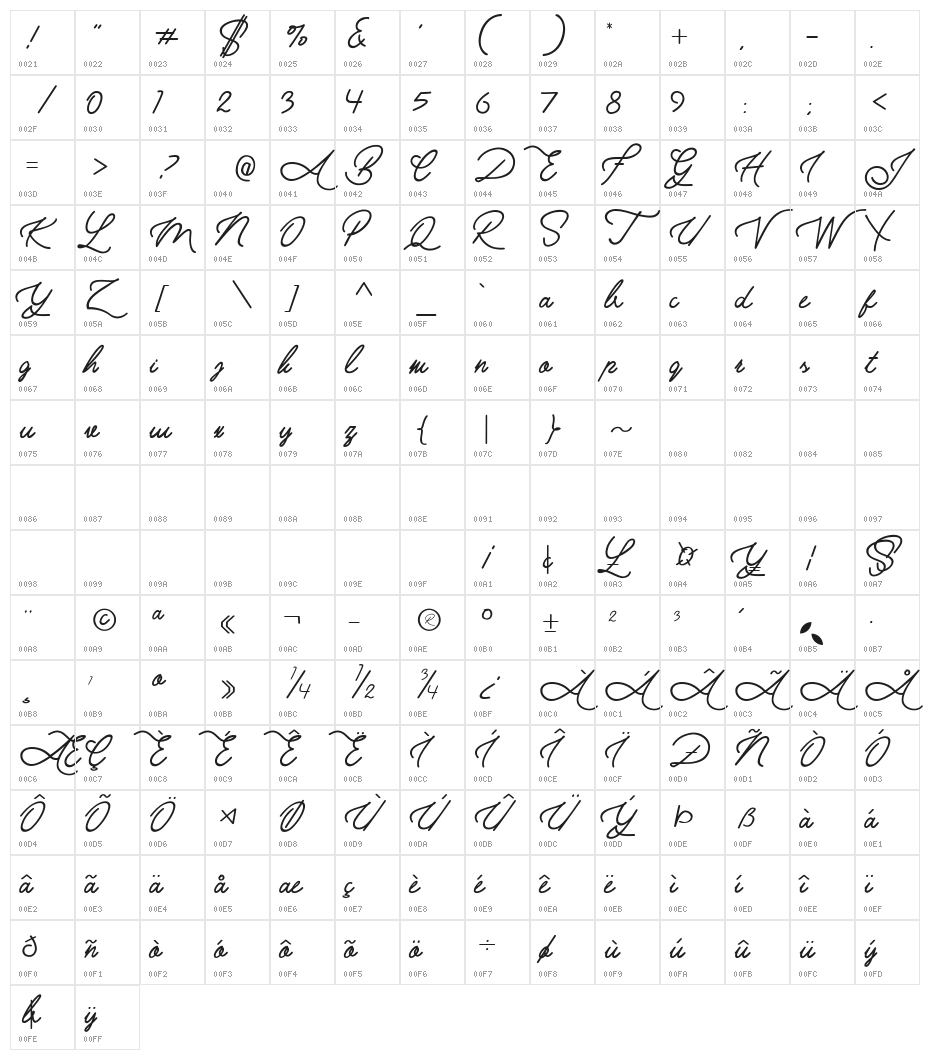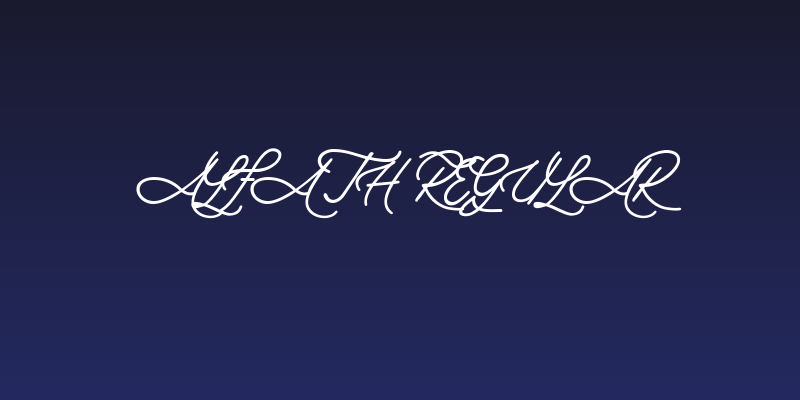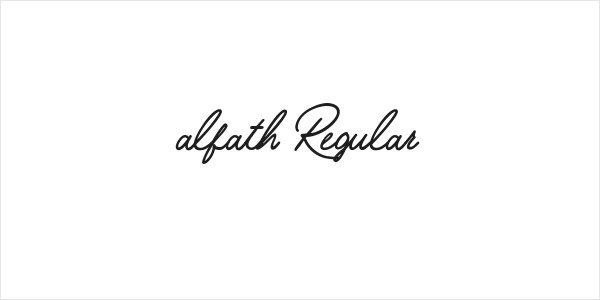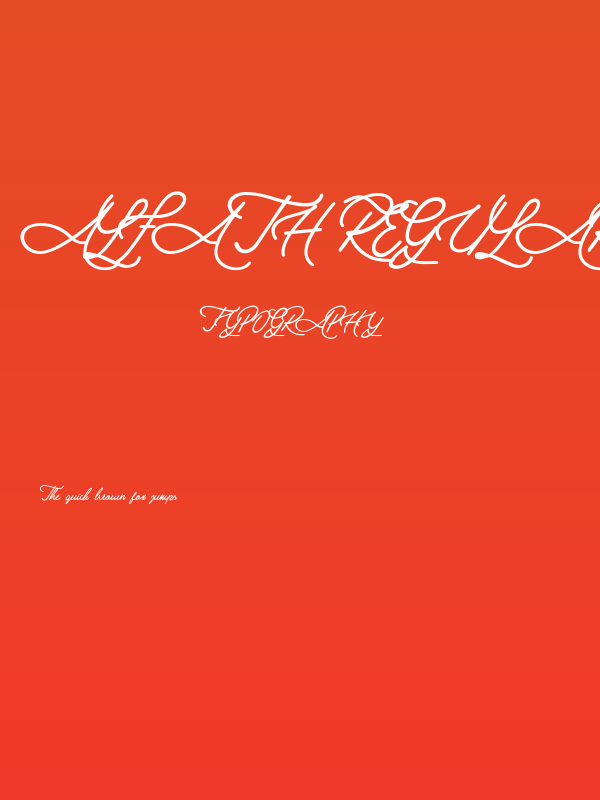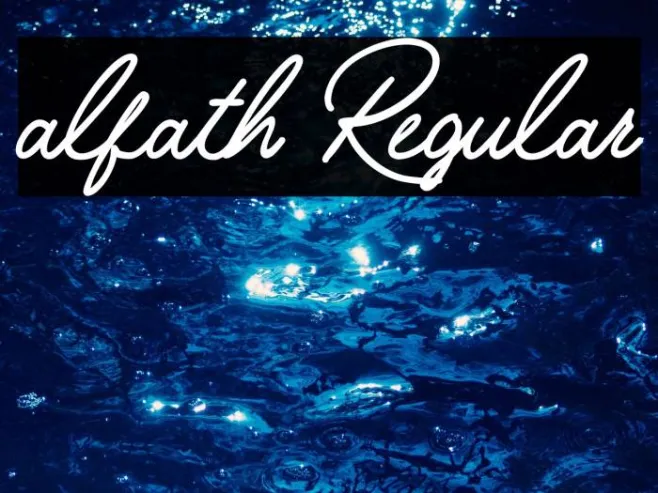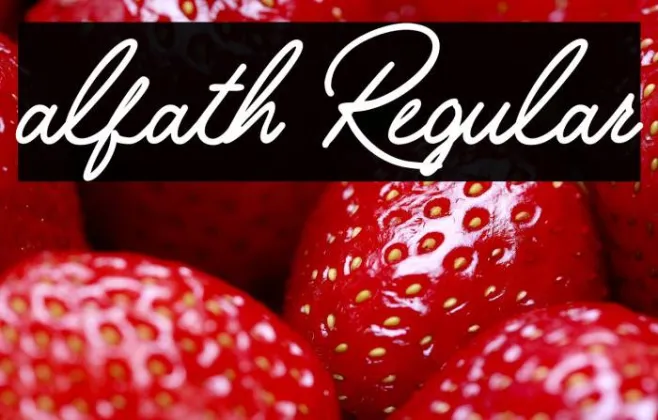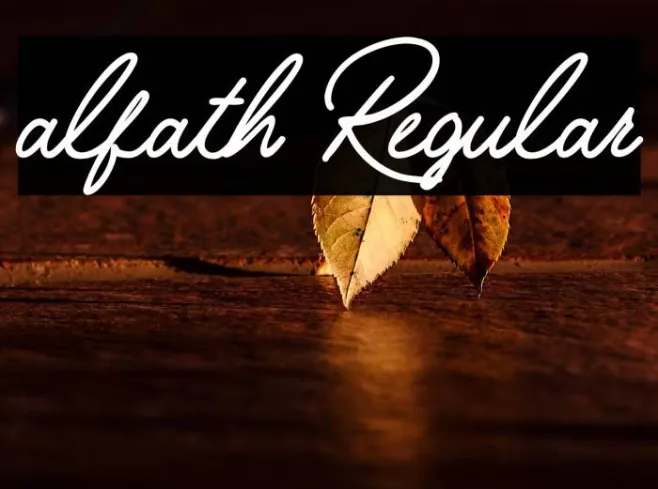
alfath Regular Font
alfath Regular Description
This elegant script font features fluid, cursive strokes that mimic the natural flow of handwriting. The uppercase letters are characterized by sweeping curves and loops, giving them a sophisticated and graceful appearance. The lowercase letters maintain a consistent style with smooth connections between characters, enhancing readability while preserving the artistic flair. The numerals are designed with similar fluidity, ensuring they blend seamlessly with the alphabet. Special characters are crafted with attention to detail, maintaining the overall aesthetic of the font. This typeface is ideal for projects that require a touch of elegance and personal expression.
| Use Case | Logos, Invitations, Personal branding |
| Proposed Projects | Wedding invitations, greeting cards, personal branding, and elegant packaging designs. |